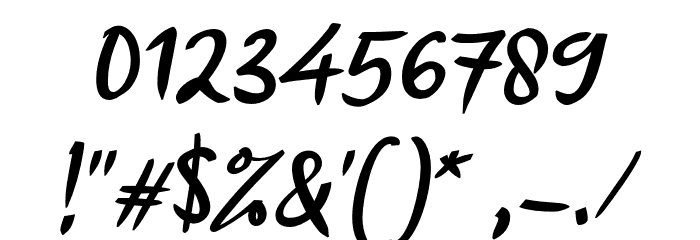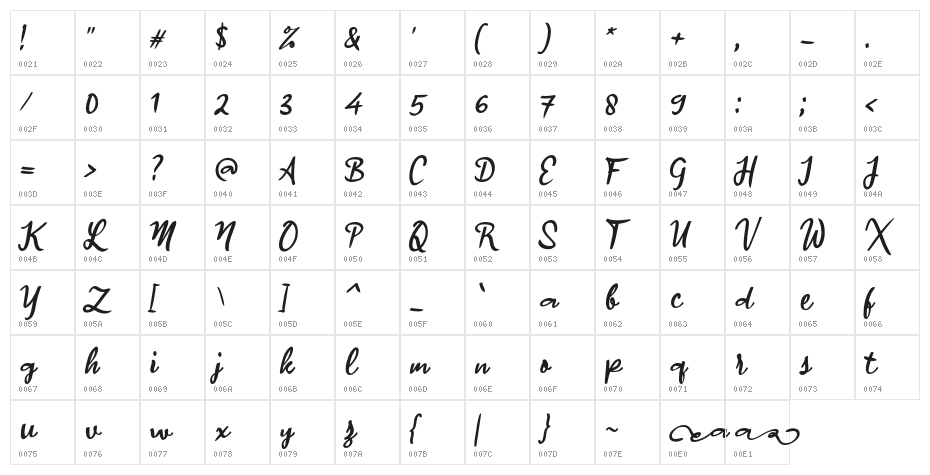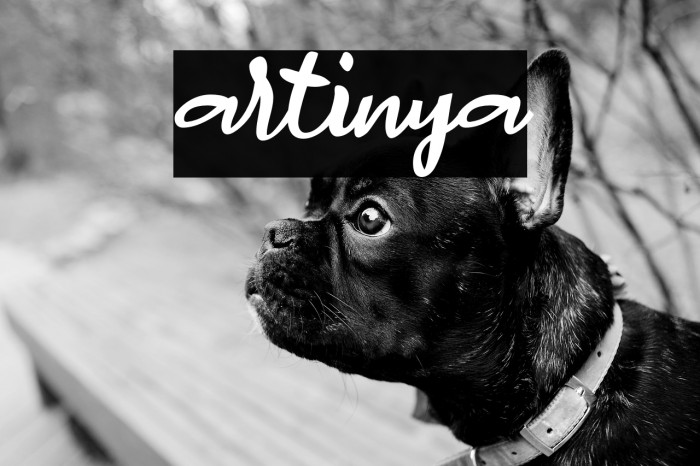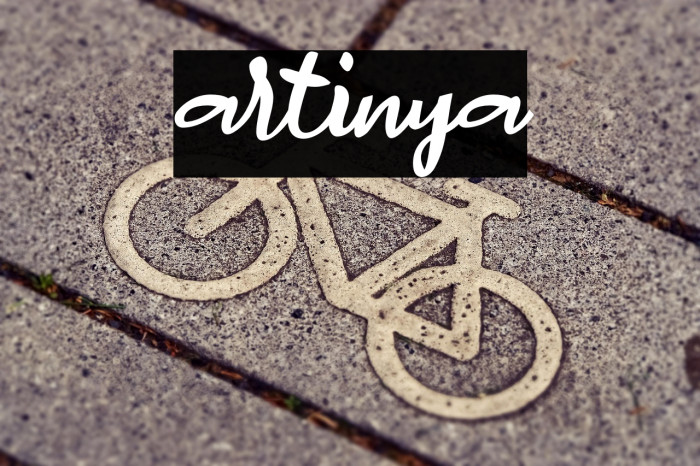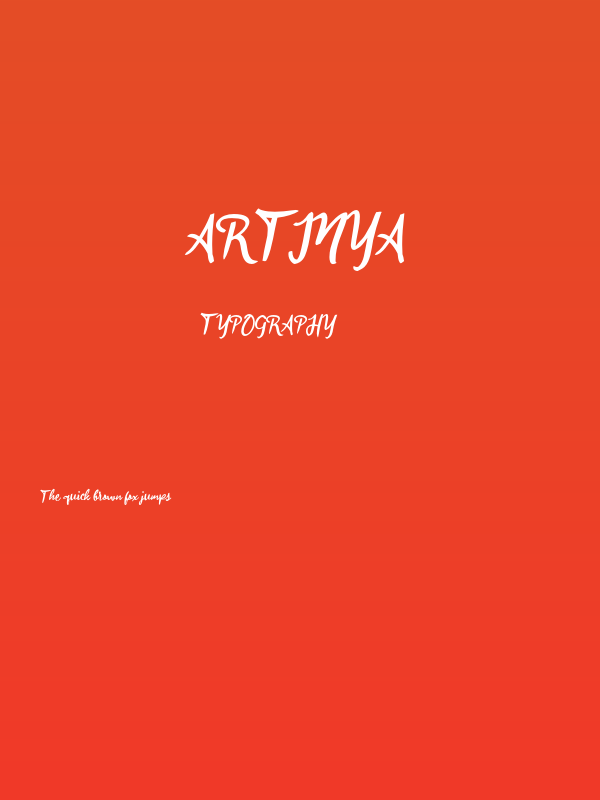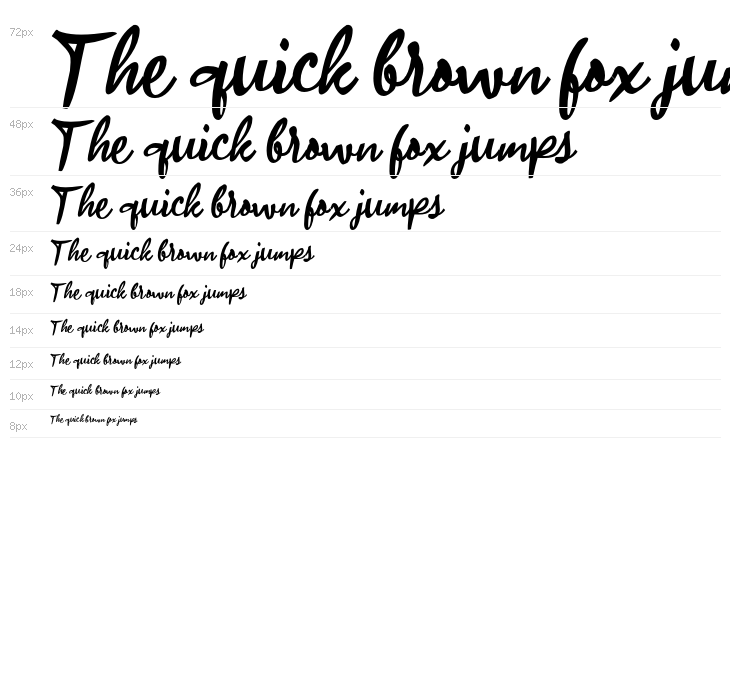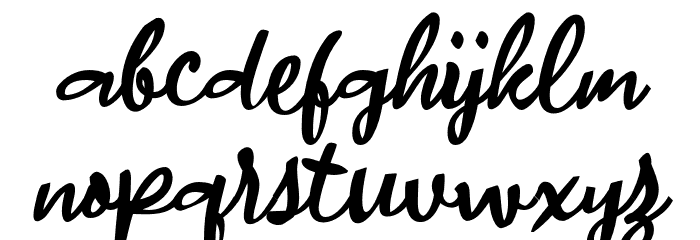
artinya Font
artinya Description
This font features a dynamic and flowing script style, characterized by its elegant and cursive letterforms. The uppercase letters exhibit a graceful and slightly slanted appearance, while the lowercase letters maintain a consistent fluidity, enhancing the overall aesthetic. The numerals and special characters are designed to complement the script style, ensuring a cohesive look across all text. The font's strokes are moderately thick, providing a bold presence without overwhelming the design. Its artistic flair makes it suitable for creative and expressive projects.